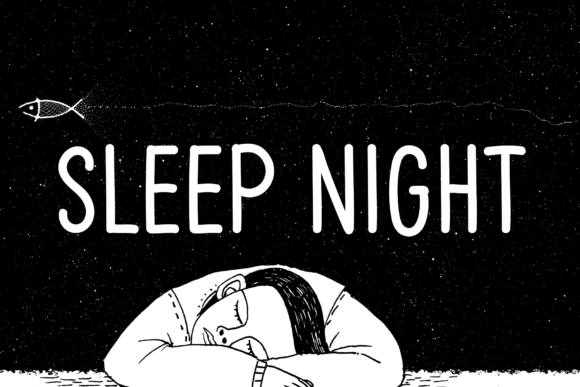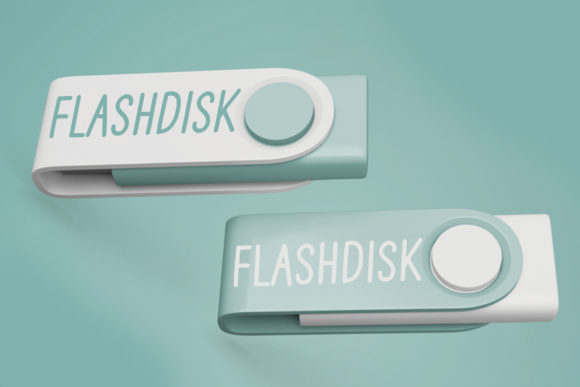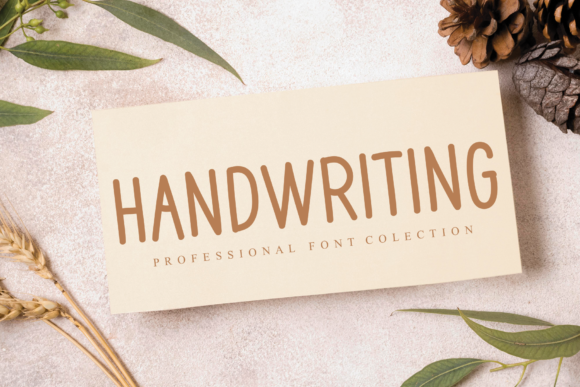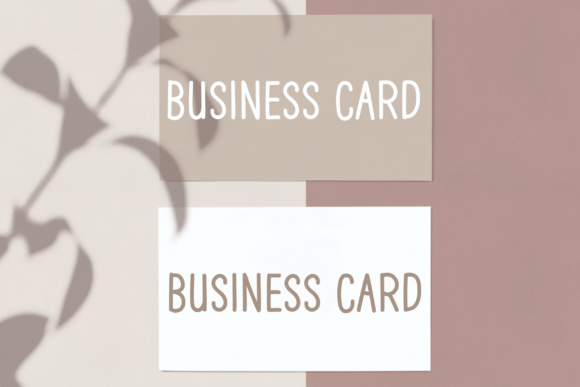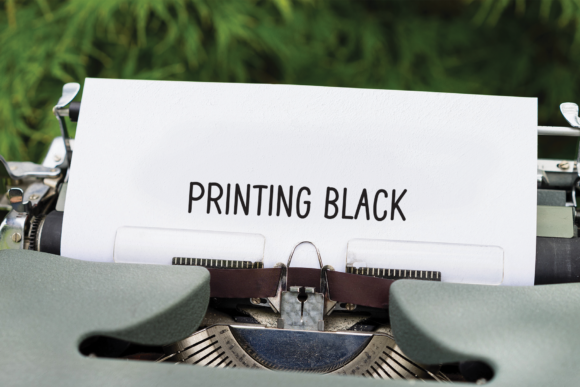
Script Fonts Sleep Night Font 0 134 FacebookTwitterPinterestWhatsApp 1 of 5 Sleep Night Font Poster 2... Sleep Night Font Poster 3... Sleep Night Font Poster 4... Sleep Night Font Poster 5... About Sleep Night Font Sleep Night is a sweet and natural handwritten font. This simple font will look gorgeous on a variety of design ideas. It will add a joyful and romantic touch to each of your projects! DOWNLOAD NOW